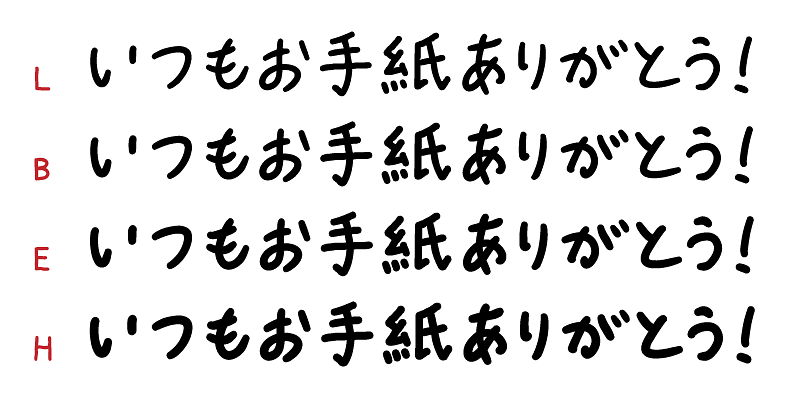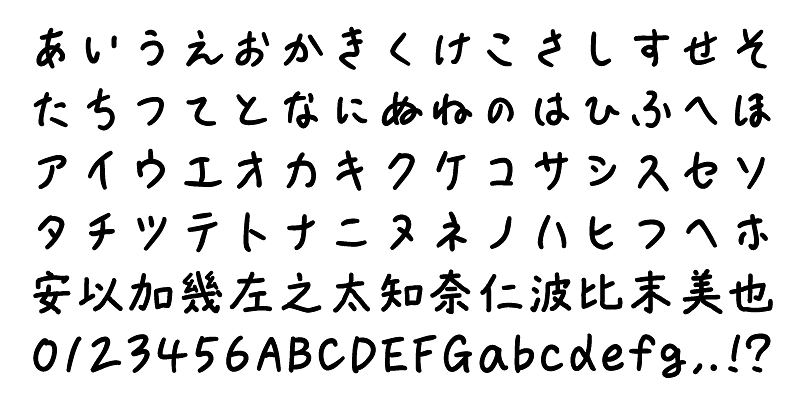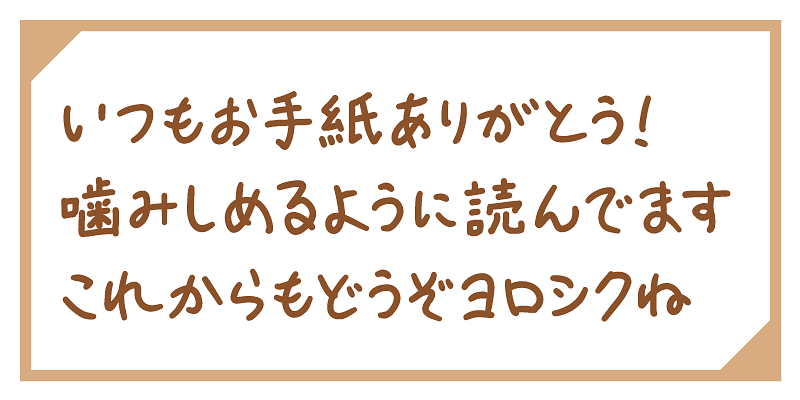
‘takumi Narazu Moji’ is a typeface inspired by characters and scenes from a town of rogues that takumi once encountered in a game. It captures raw expressions, outsider vulnerability, and intense emotional swings in a bold, almost emoji-like style. The name reflects imperfection, ‘not yet fully formed’, as a reminder that this very incompleteness is what makes us human. Use this font to convey honest, unfiltered messages.